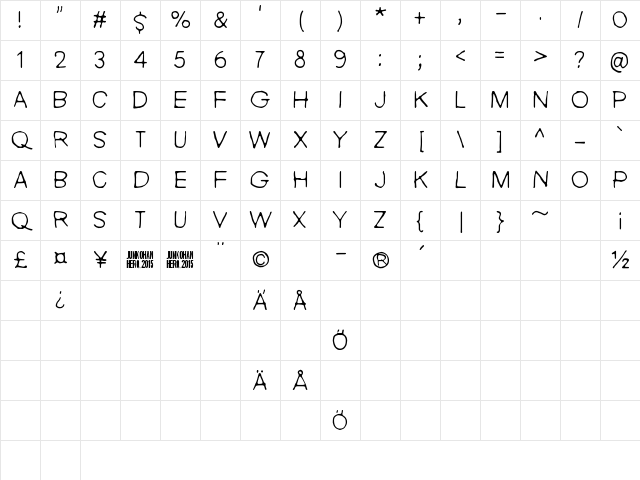
Nie Zabawne Komik Regular
Design Context for Nie Zabawne Komik
Nie Zabawne Komik is a composed and adaptable typeface that performs quietly and consistently across a wide range of design contexts.